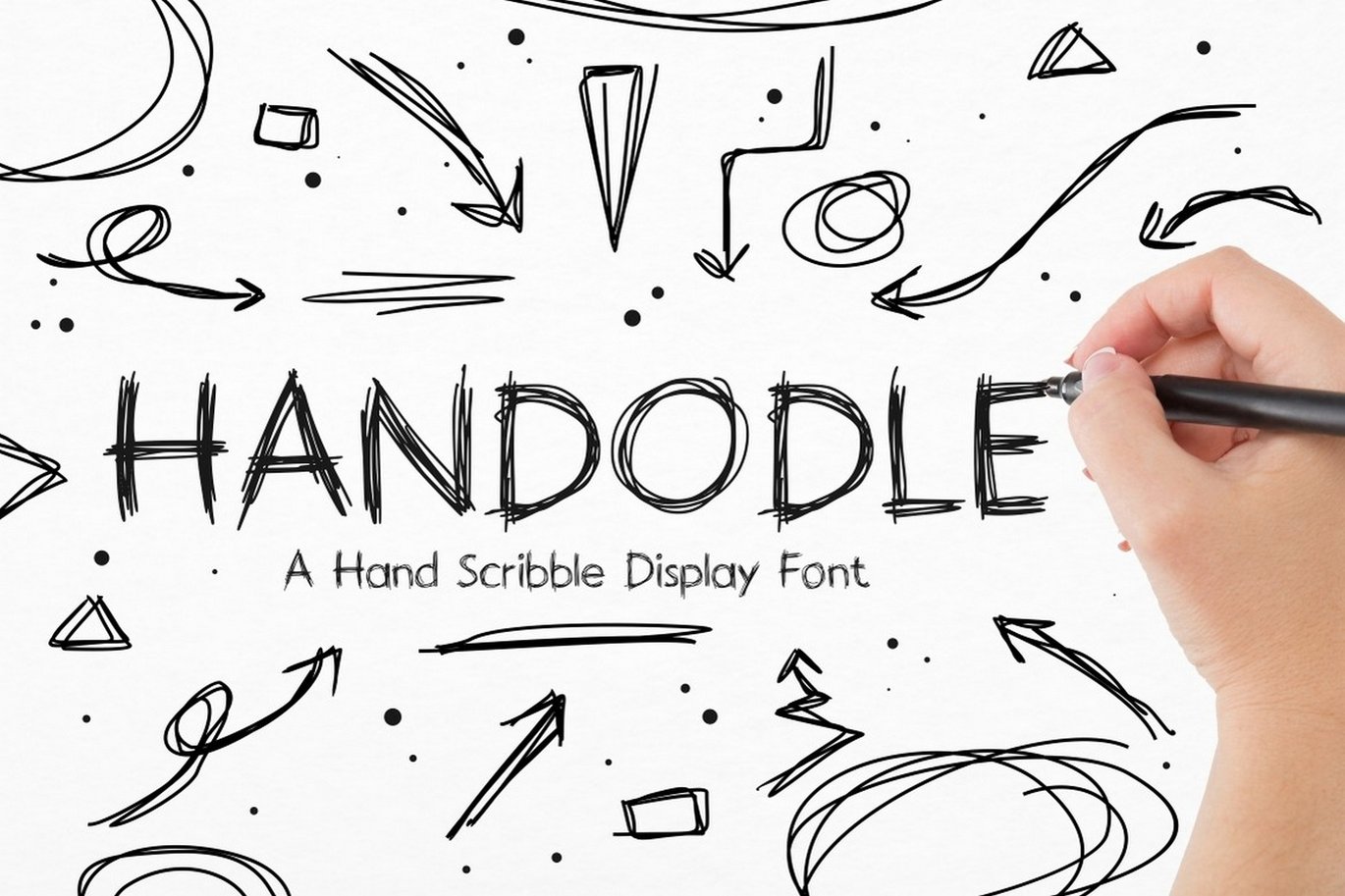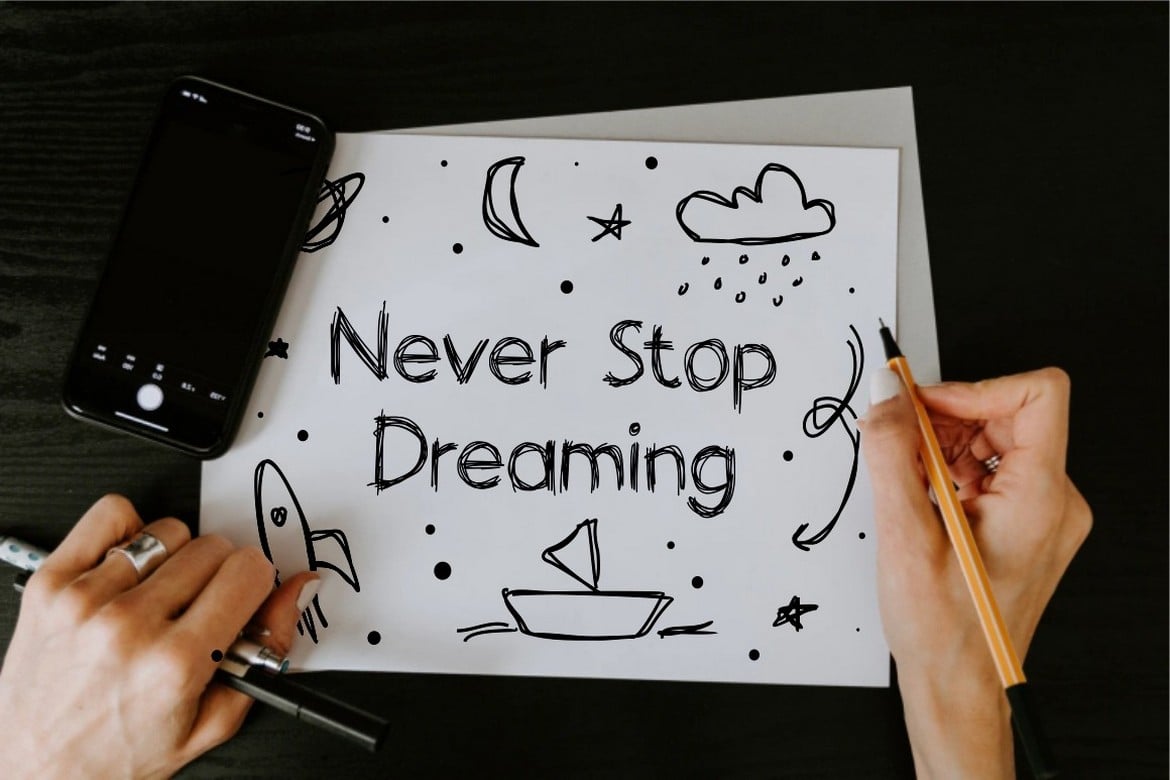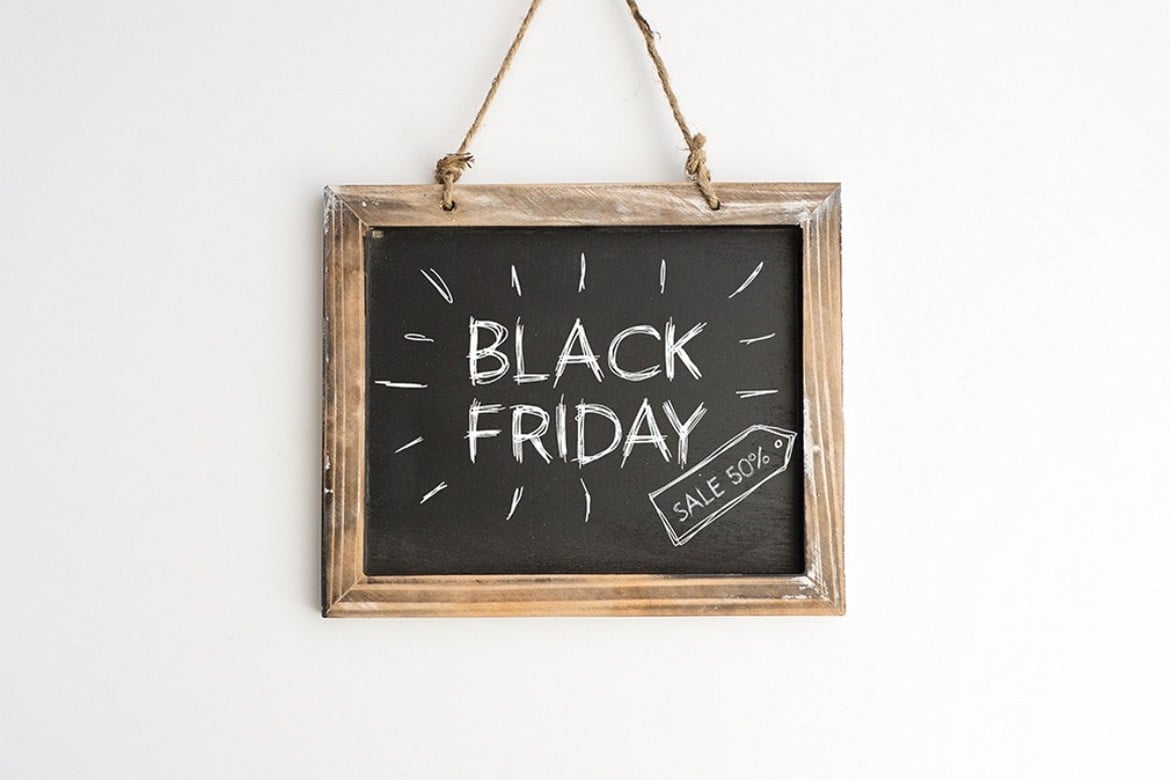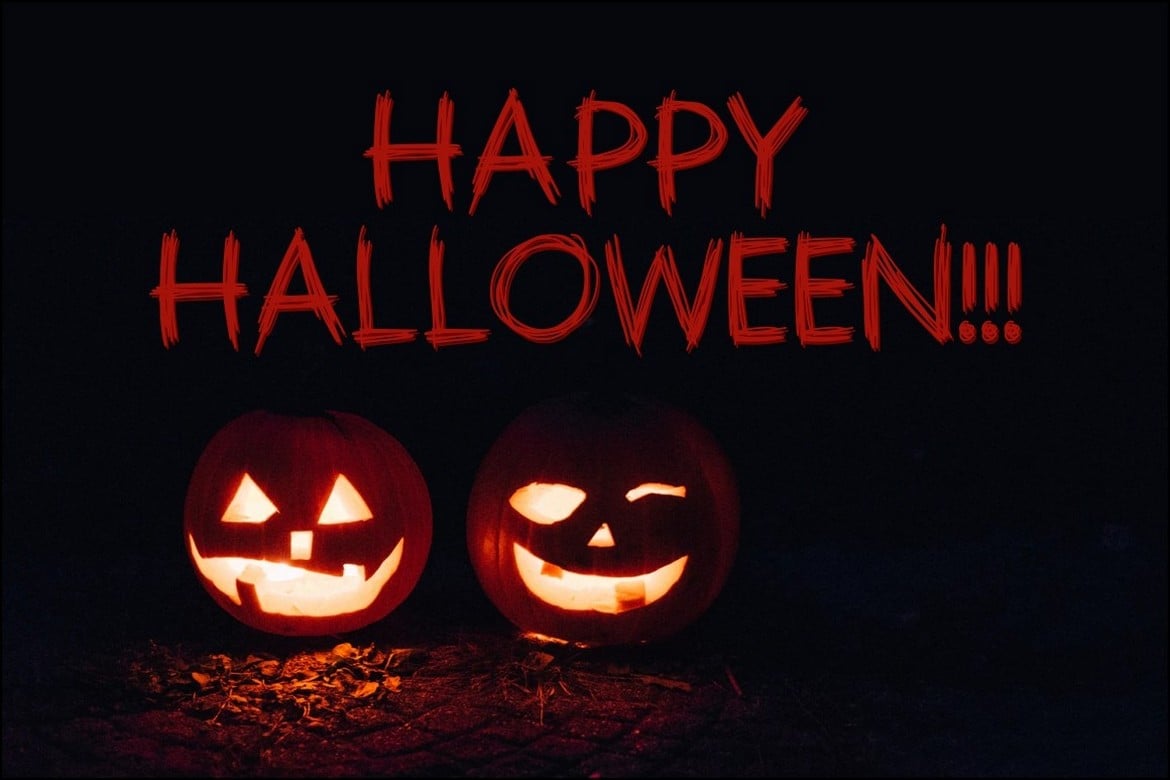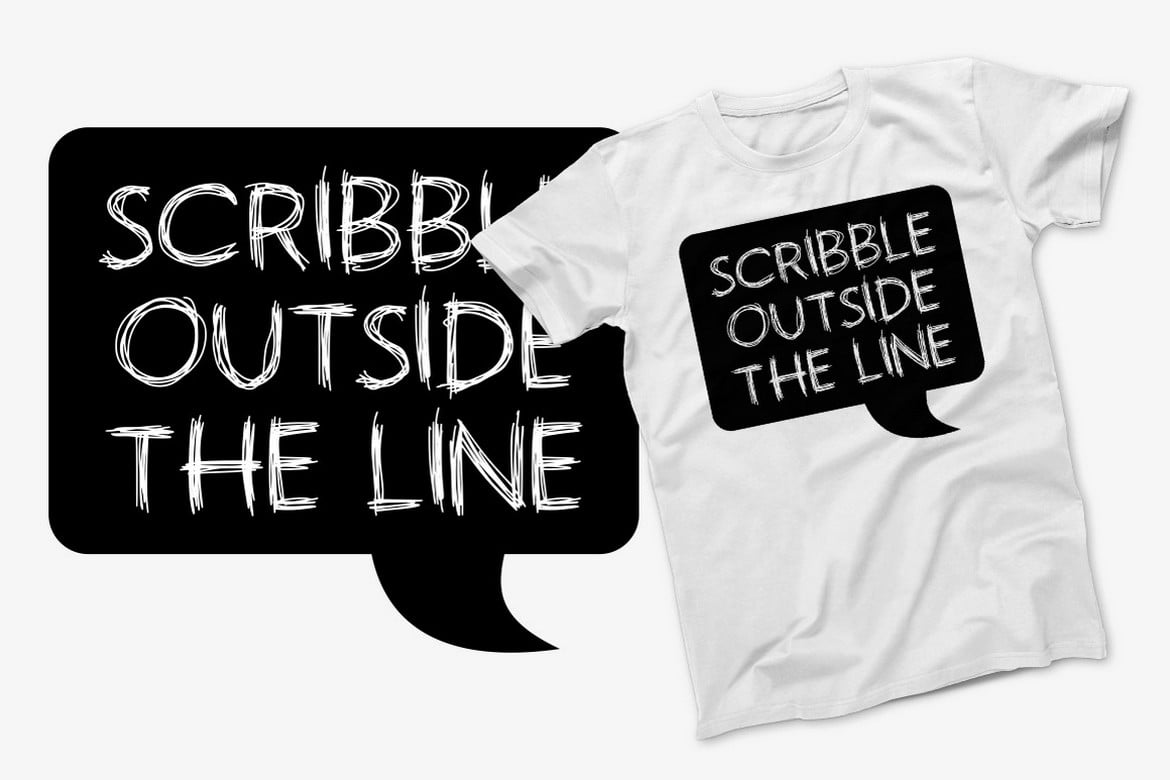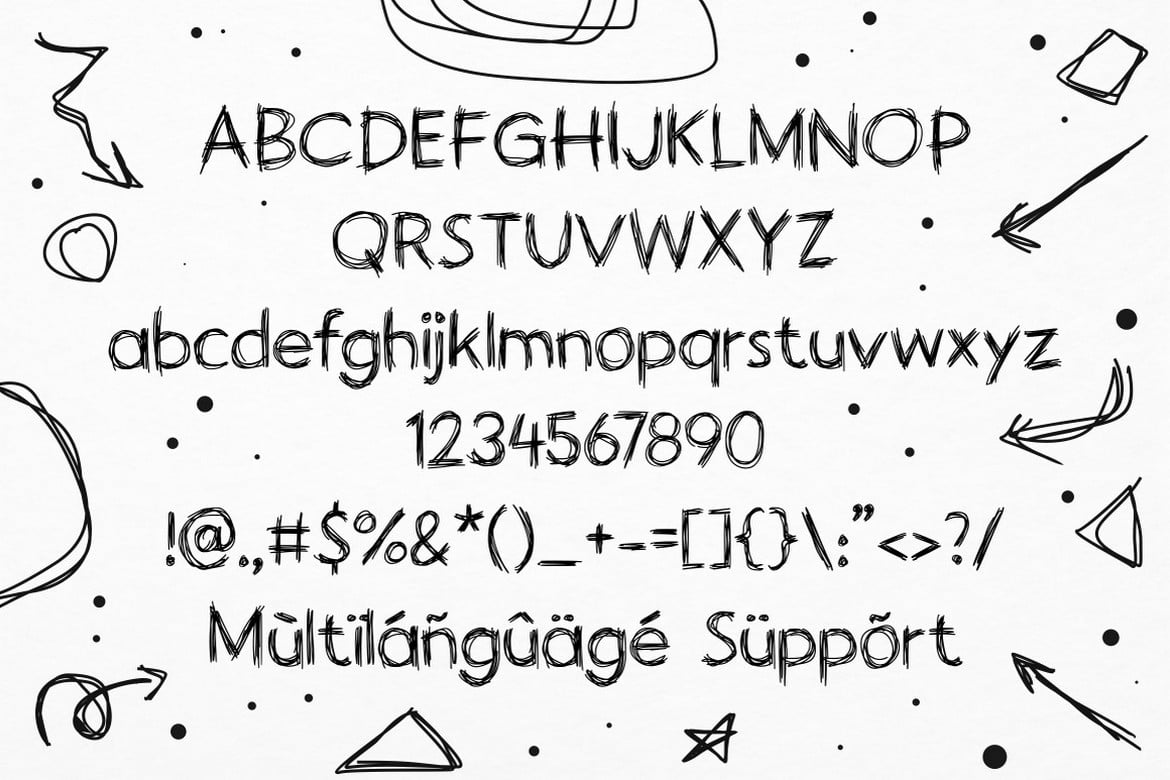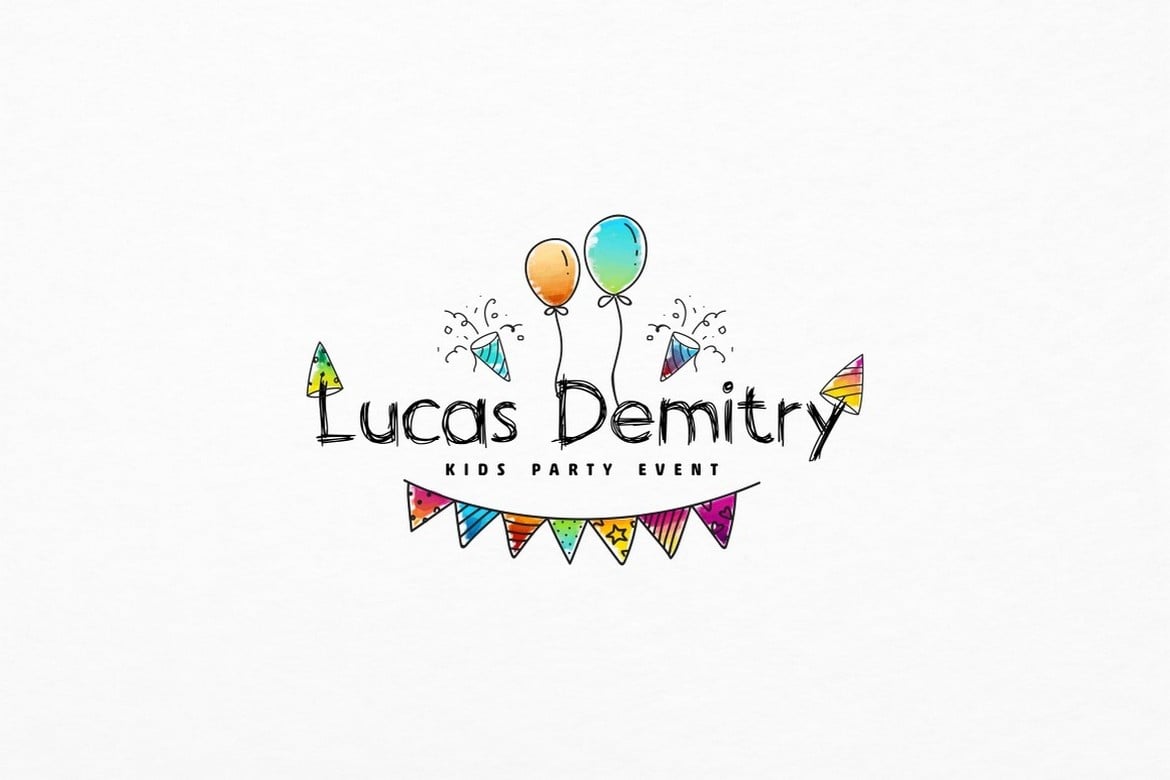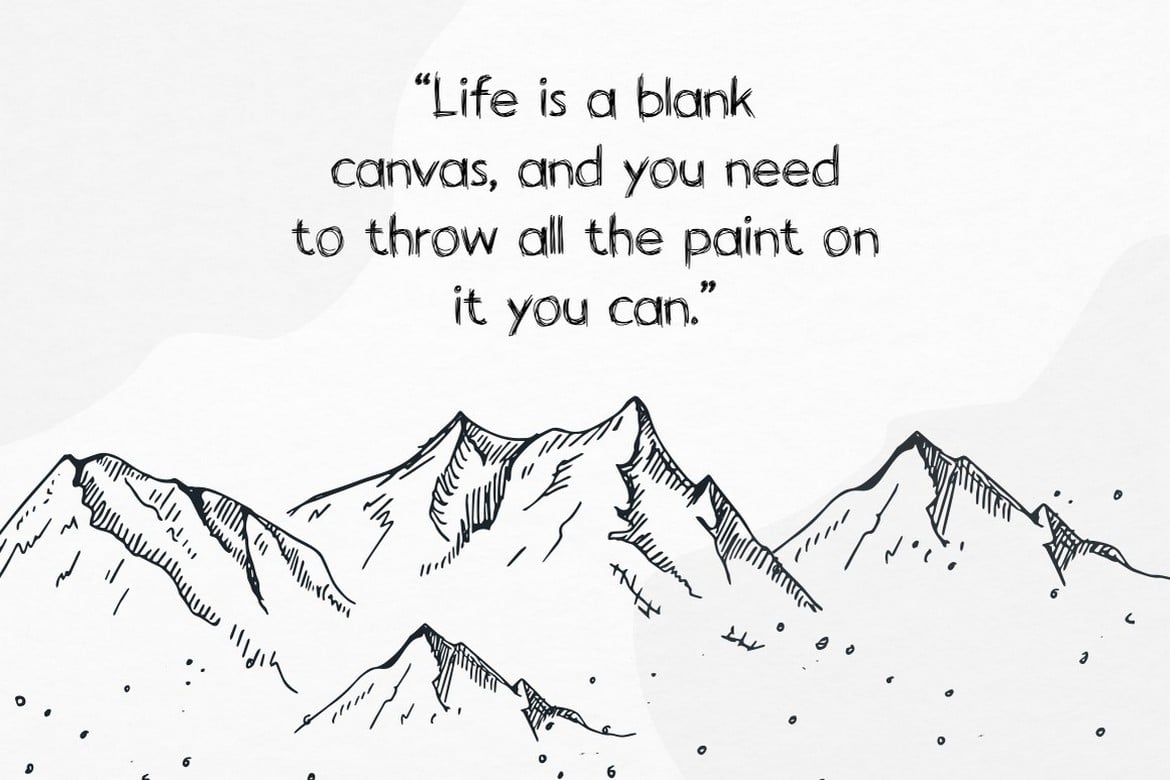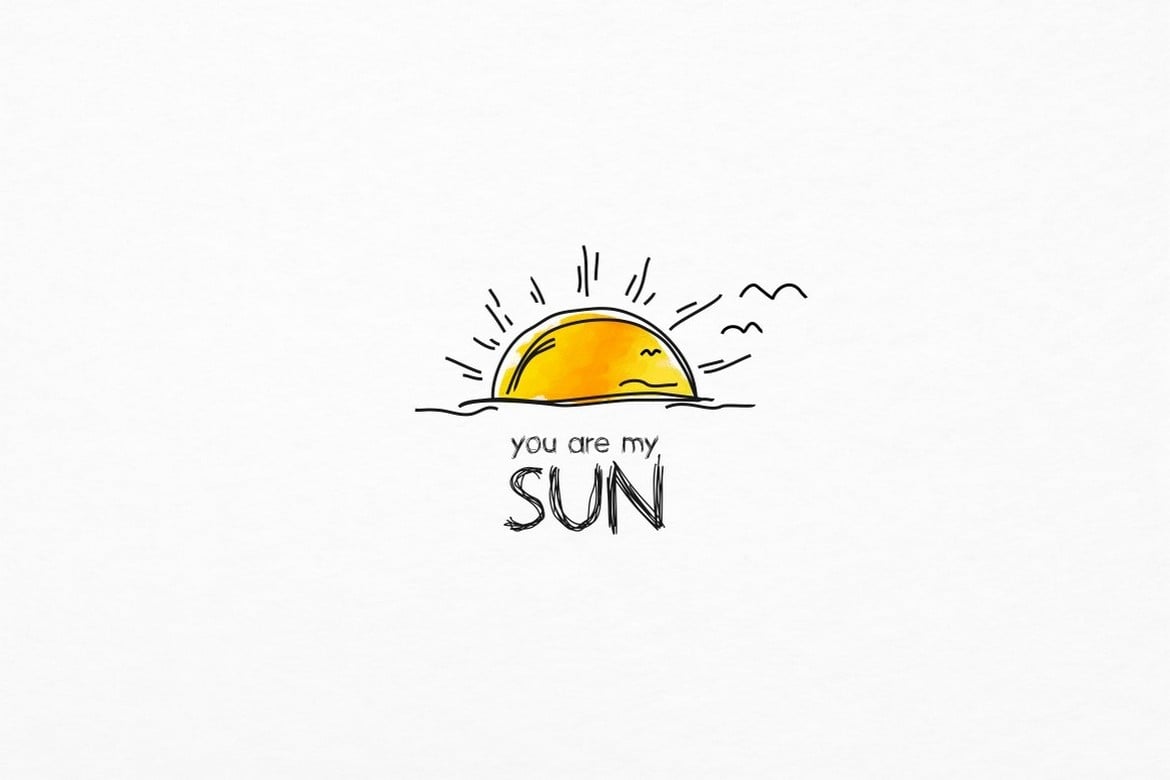
Handodle – A Hand Scribble Display Font
** Handodle **
Introducing Handodle, a natural and fun scribbley handwritten display font. a fun, quirky, rustic and unique font.
Handodle is perfect for logo, quote, craft, t-shirt, greeting card, branding, invitation, heading, art and so much more!
- Number, Punctuation And Symbols
- Multilanguage Support.